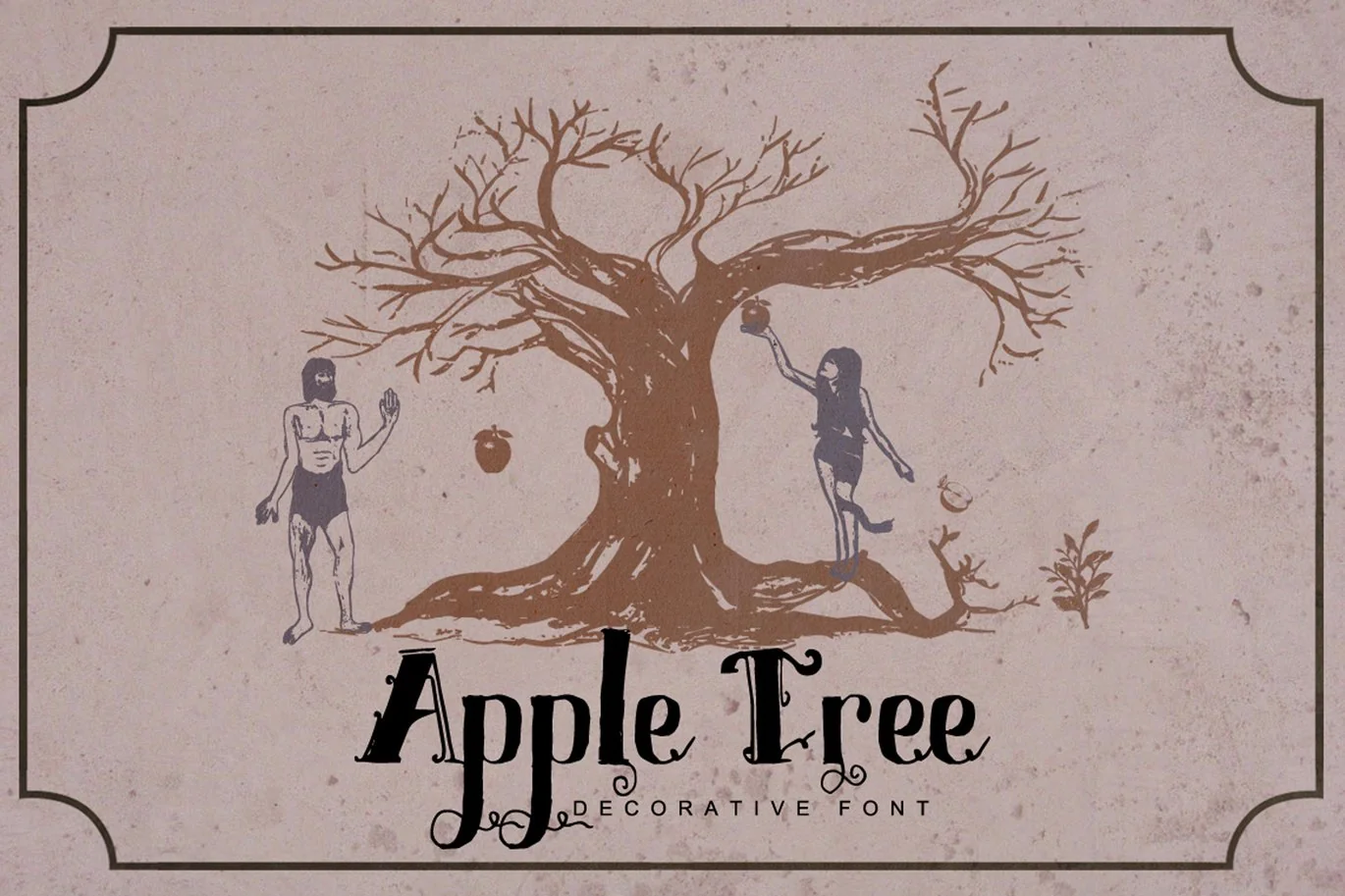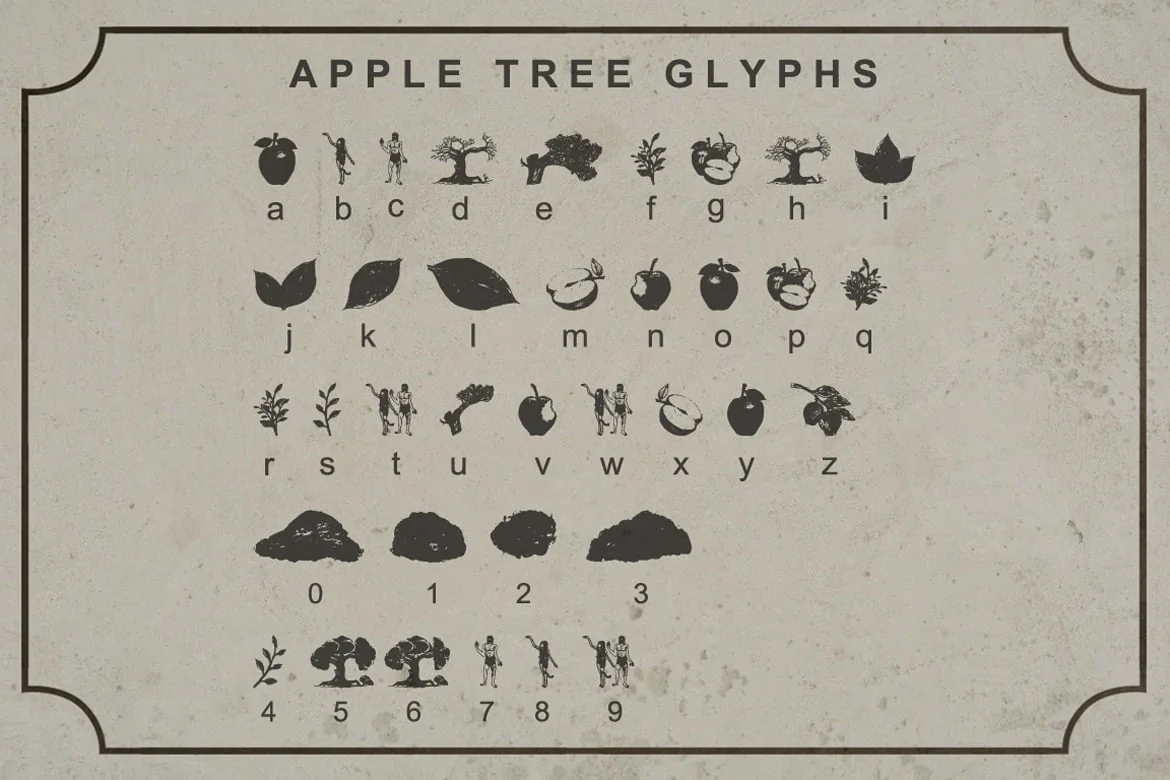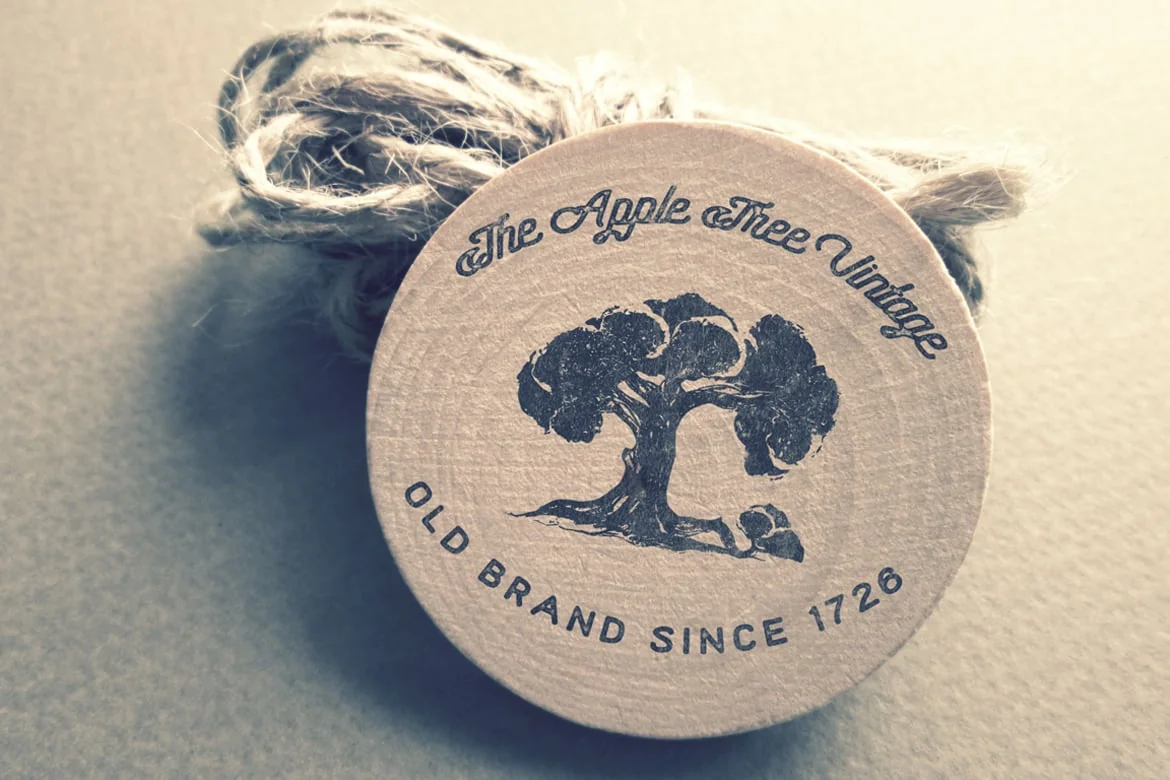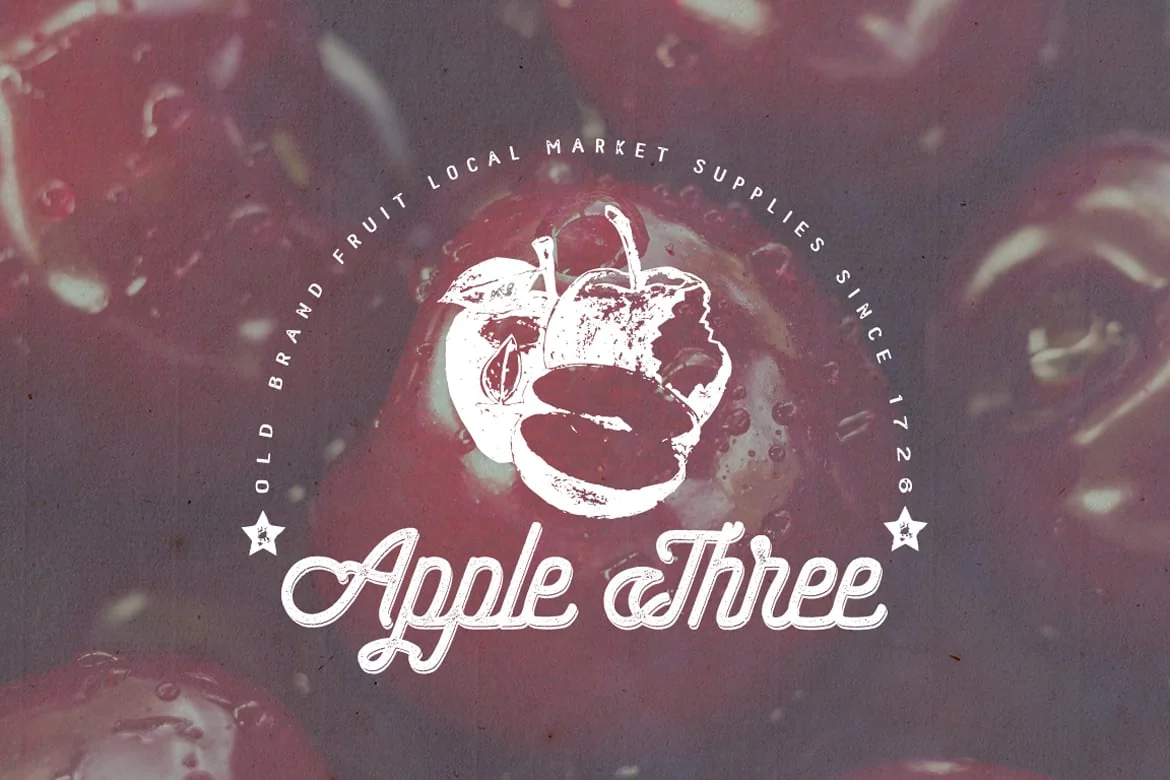
Apple Tree – Decorative Font
Apple Tree Font Decorative
This is Decorative Font, Suitable for design, element design, wedding, event, t-shirt, logo, badges, sticker, and awesome work, etc…
Ready to use “Apple Tree Font” for Awesome Work